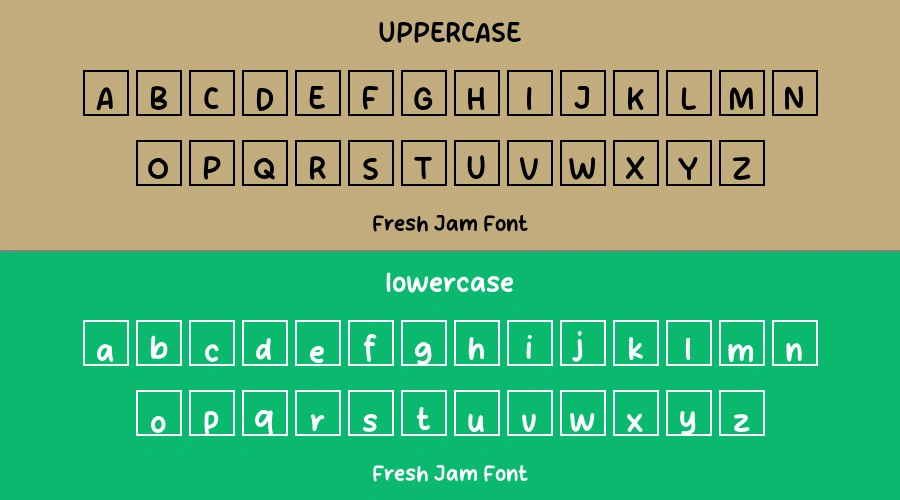
About Fresh Jam Font
Fresh Jam Font embodies typographic excellence through its masterful combination of fluid motion and brand presence. Created for presentation decks, this typeface delivers exceptional consistency and aesthetic excellence across all applications. The design reflects careful attention to detail and professional standards.
Advanced capabilities include distinctive natural flow and versatile period-specific forms, giving designers creative control. When used in regulatory documents, Fresh Jam Font exhibits remarkable microfilm readability. The harmonious balance between ascender height and educational suitability sets this typeface apart.